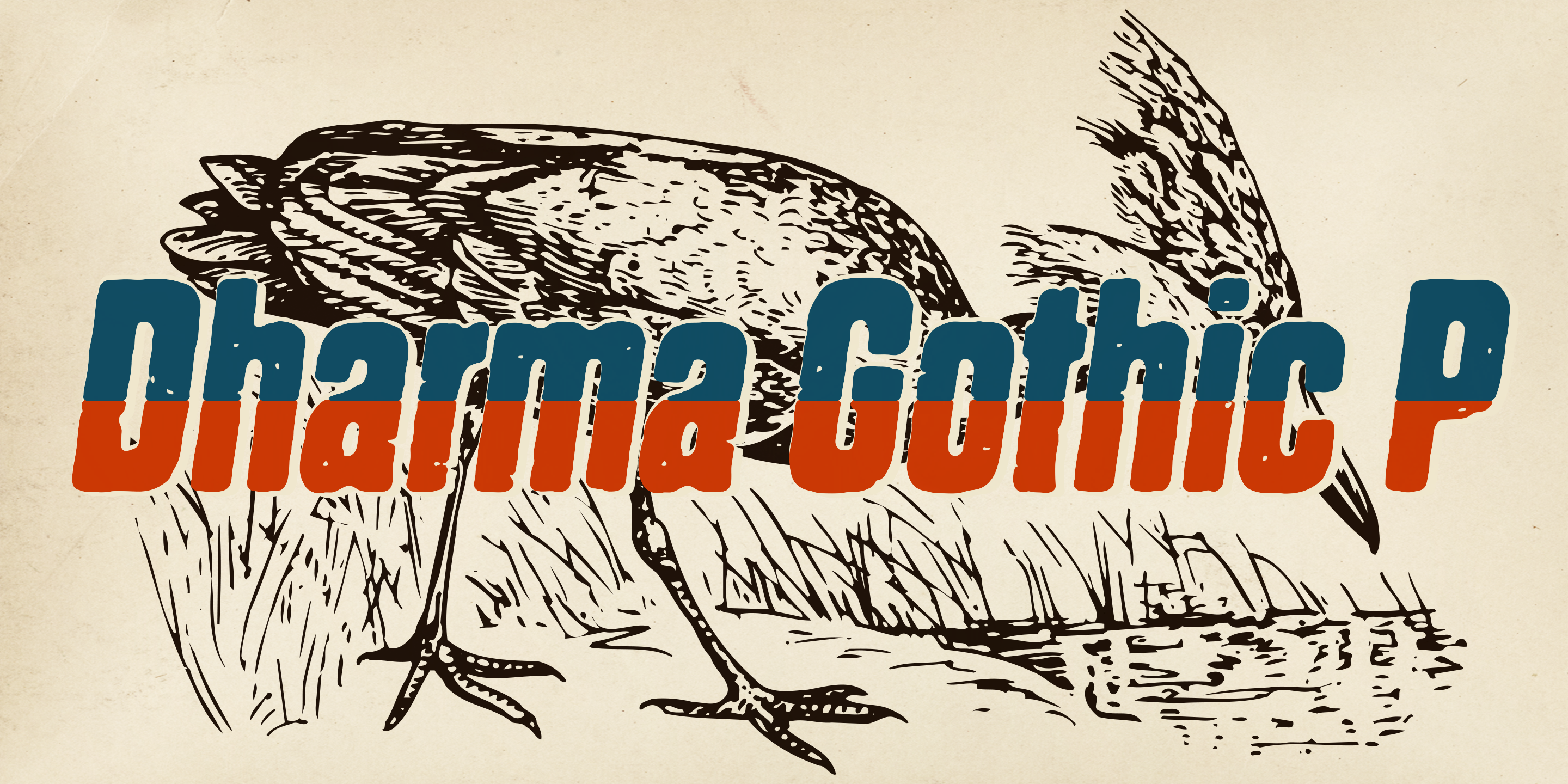
Dharma Gothic P Font excels in spiritual design applications including Buddhist temple signage, meditation center branding, mindfulness publication layouts, spiritual wellness marketing, yoga studio communications, dharma teaching materials, enlightenment-focused book covers, zen monastery graphics, spiritual retreat promotions, and conscious living brand identities. This enlightened typeface seamlessly combines gothic strength with spiritual serenity, making it an essential tool for designers working on projects that require spiritual authority, mindful communication, and the powerful presence of ancient wisdom traditions.
What makes Dharma Gothic P Font particularly exciting is its unique fusion of traditional gothic typography with Buddhist philosophical principles that creates a distinctive character embodying both spiritual strength and enlightened clarity. The font features bold, structured letterforms with mindful spacing and purposeful proportions that reflect the disciplined path of dharma practice and the unwavering commitment to spiritual truth. Its thoughtful design incorporates elements of monastic tradition with contemporary accessibility, creating perfect harmony between ancient wisdom and modern communication needs. The typeface's ability to convey both spiritual authority and compassionate approachability makes it perfect for organizations seeking to share dharma teachings while maintaining the gravitas essential for spiritual guidance. Each character has been carefully crafted to maximize spiritual impact while ensuring excellent readability across dharma-focused materials, from intimate meditation guides to large-scale temple installations.
The Dharma Gothic P Font family encompasses mindful variations including Light, Regular, Medium, Bold, and Black weights, each maintaining the core spiritual aesthetic while offering different levels of dharmic intensity and contemplative presence. The family also features condensed versions for space-efficient spiritual layouts and extended variants for maximum impact in temple-scale applications. Special enlightenment cuts may include outline styles that enhance the meditative character, serif variations that capture traditional manuscript qualities, and ornamental versions that amplify the font's sacred nature for premium spiritual branding and dharma communication materials.
Spiritual professionals consistently choose Dharma Gothic P Font Free Download for projects requiring authentic Buddhist appeal and enlightened communication excellence. This exceptional typeface has gained recognition in the spiritual community for its ability to instantly convey dharmic wisdom and spiritual authority through expertly crafted contemplative typography. The font's specialized OpenType features include spiritual alternates, dharma ligatures, and Buddhist symbols that support comprehensive spiritual branding and enlightened communication needs.
Whether you're developing Buddhist center identities, creating dharma teaching materials, designing meditation applications, or crafting spiritual wellness communications, Dharma Gothic P Font delivers outstanding results. Its enlightened aesthetic makes it particularly appealing to Buddhist temples, meditation centers, spiritual teachers, mindfulness apps, and conscious living brands seeking to communicate ancient wisdom, spiritual strength, and the transformative power of dharma practice through their visual identity.
The font's technical specifications ensure optimal performance across all spiritual applications while preserving its sacred dharmic character. It includes comprehensive character encoding that supports international Buddhist markets, making it suitable for global dharma centers and multilingual spiritual projects. The careful optimization guarantees consistent rendering across various spiritual media, maintaining the font's enlightened qualities whether displayed on digital meditation platforms or printed on traditional dharma texts.
Professional designers value Dharma Gothic P Font's ability to convey spiritual authority and Buddhist wisdom while maintaining commercial effectiveness and educational clarity. Its powerful presence creates immediate associations with ancient teachings and spiritual transformation while remaining highly functional for comprehensive dharma branding systems. The font's Buddhist-inspired design helps spiritual organizations establish credibility in mindfulness markets while connecting with audiences seeking authentic spiritual guidance, dharmic wisdom, and the profound peace that comes from following the enlightened path of Buddhist practice.